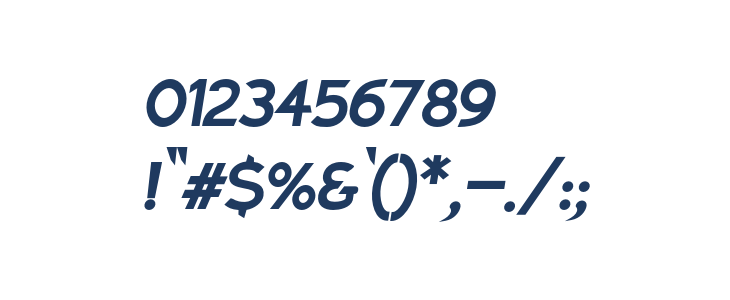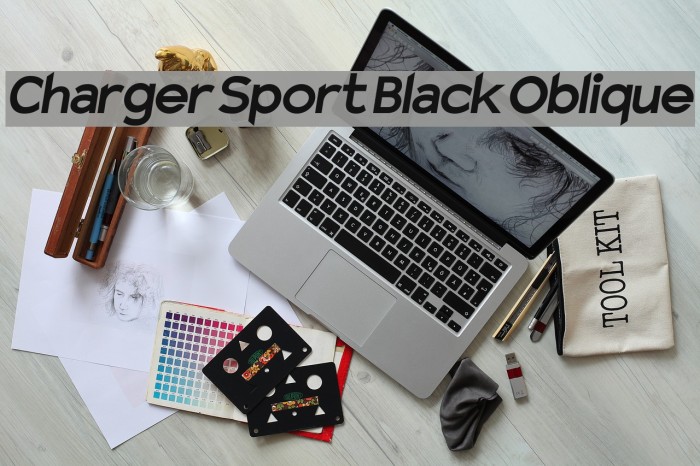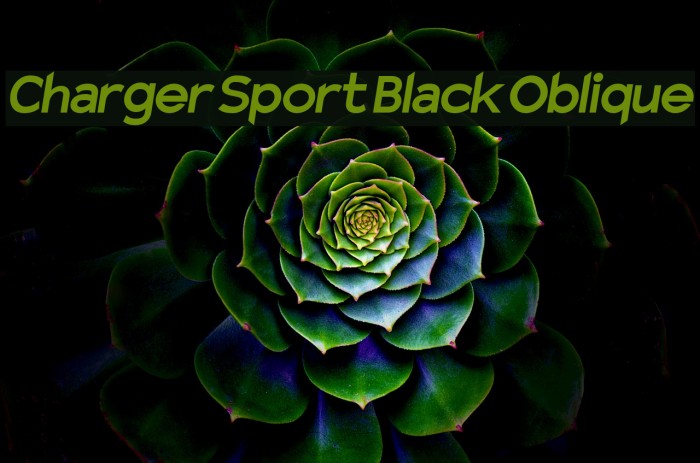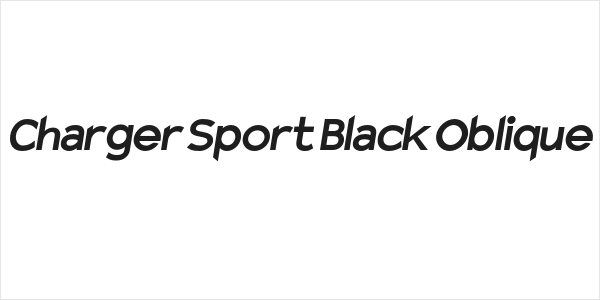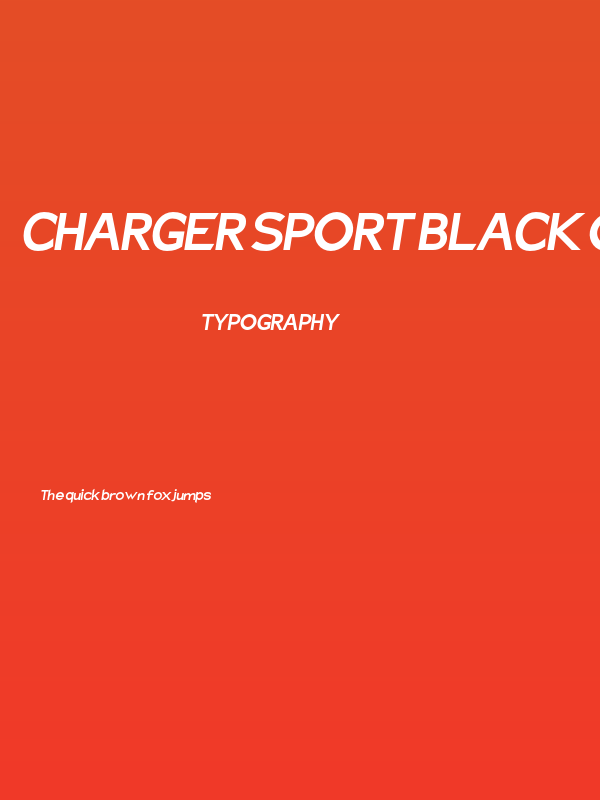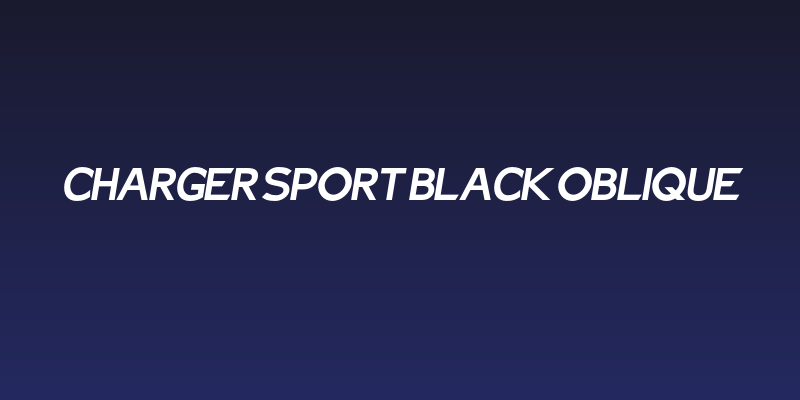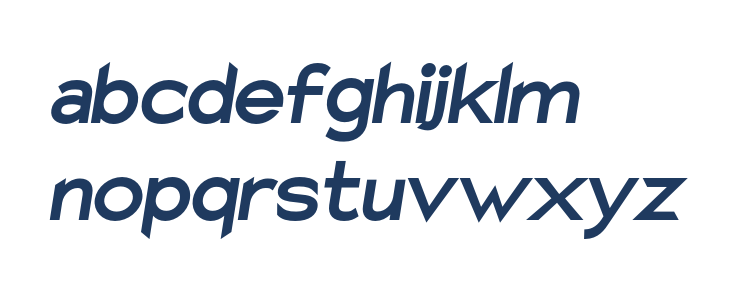
Charger Sport Black Oblique Font
Charger Sport Black Oblique Description
This font features a dynamic and sporty design with an oblique slant, giving it a sense of motion and energy. The characters are bold and well-defined, with a modern aesthetic that combines sharp angles and smooth curves. The uppercase letters are particularly striking, with a strong presence that commands attention. The lowercase letters maintain the same energetic style, ensuring consistency across different text elements. Numbers and special characters are crafted with the same attention to detail, making them suitable for a variety of applications. Overall, this font exudes a contemporary and athletic vibe, perfect for projects that require a bold and impactful typeface.